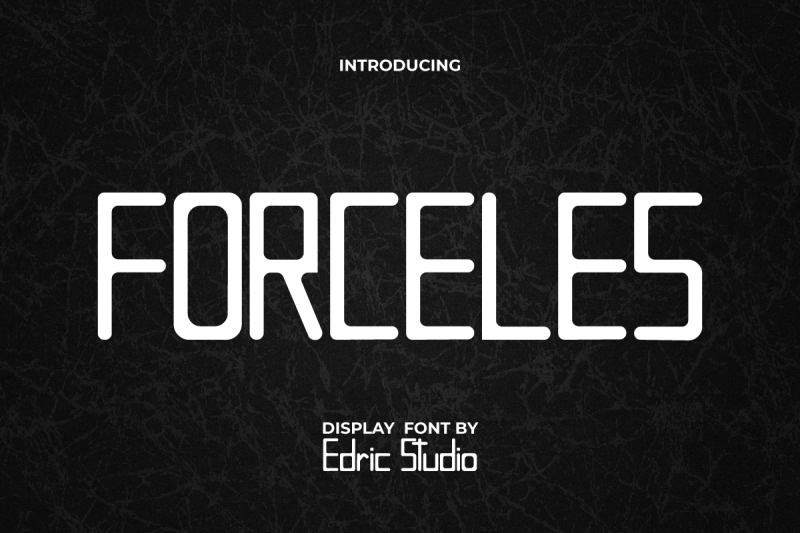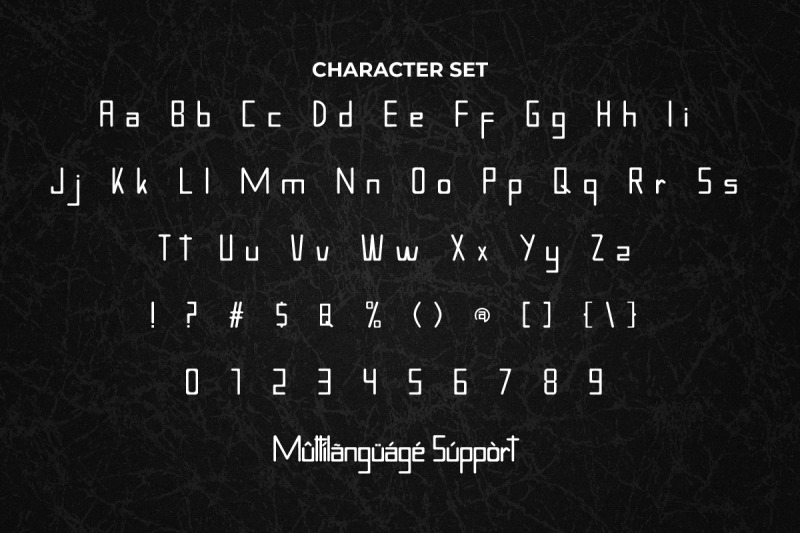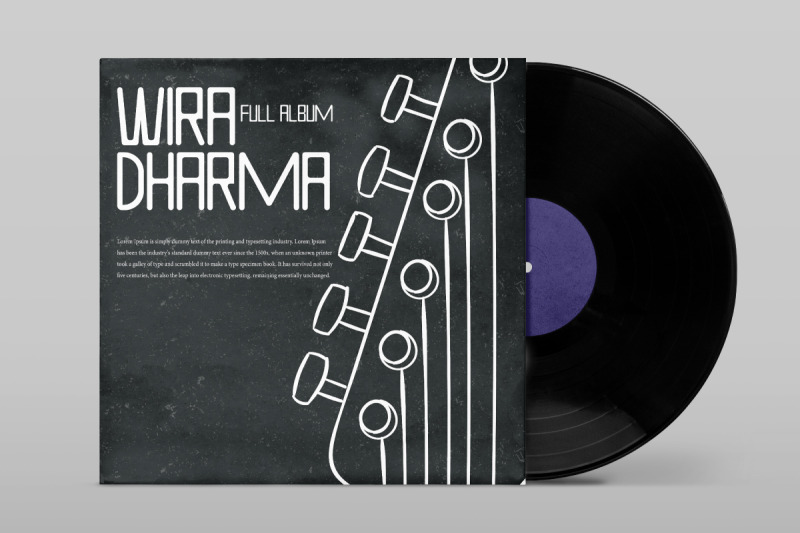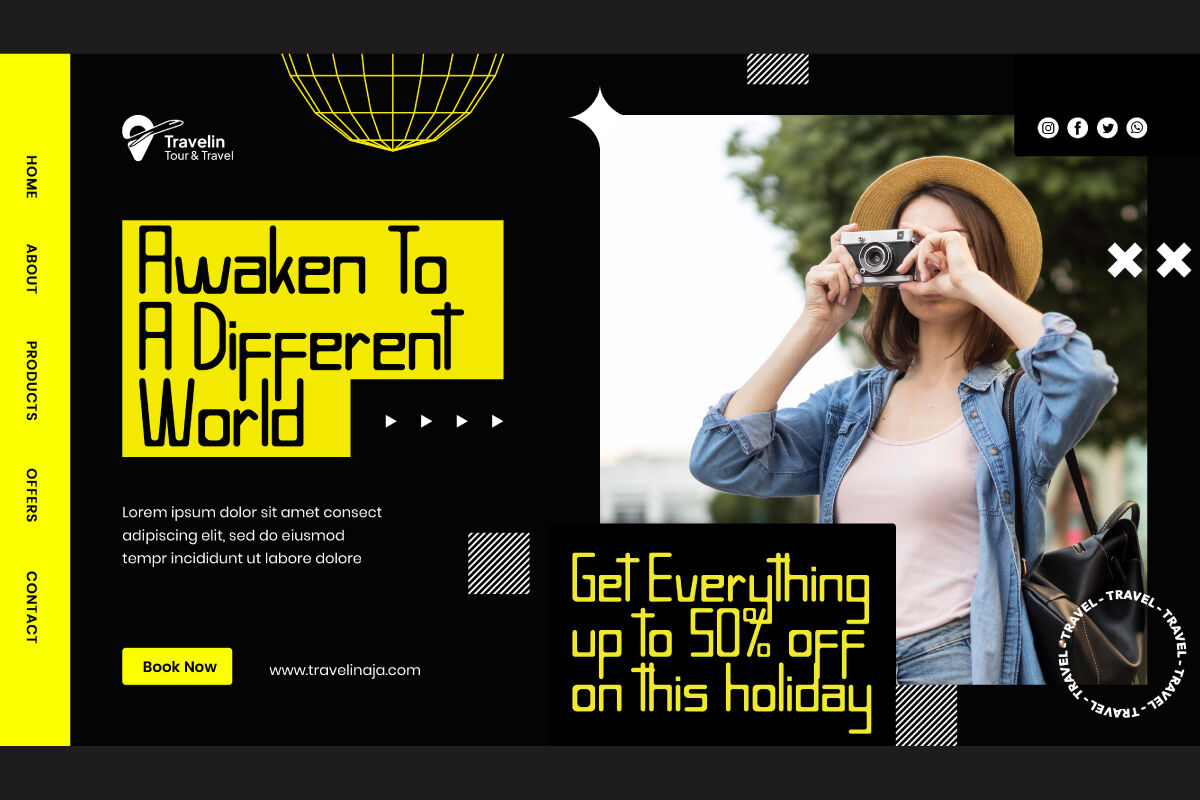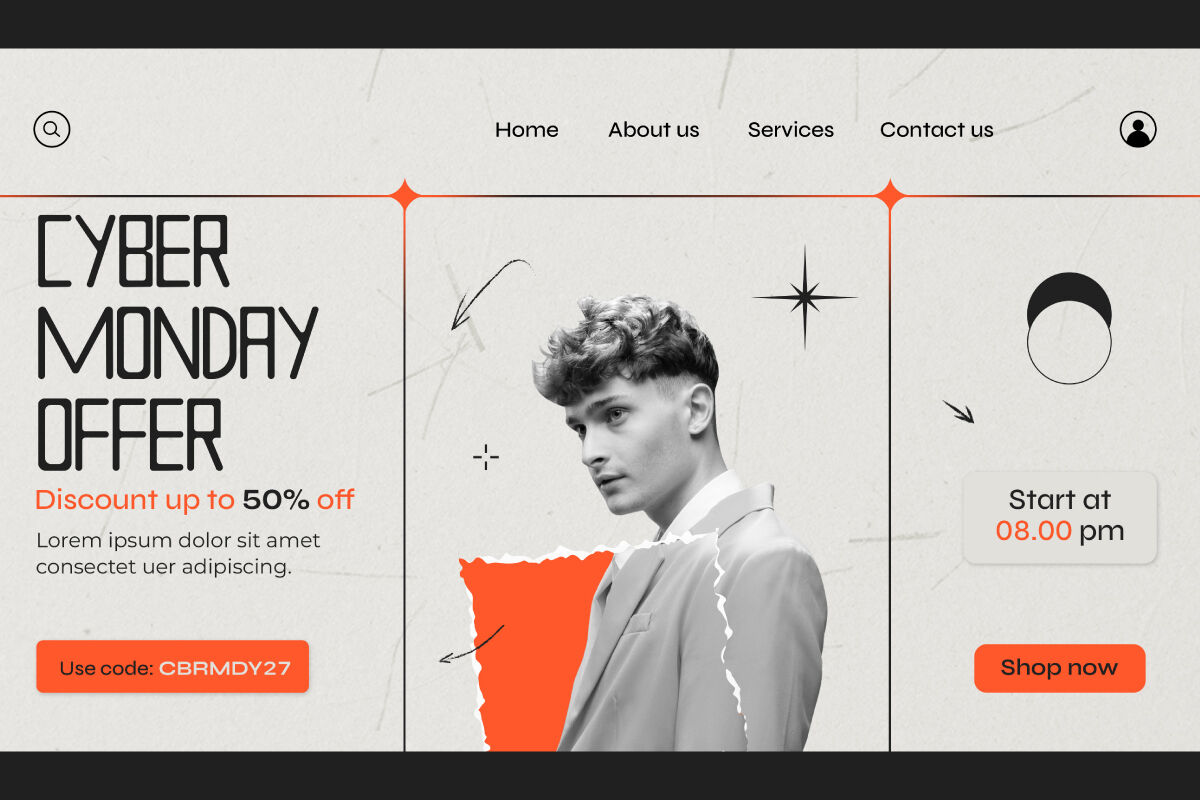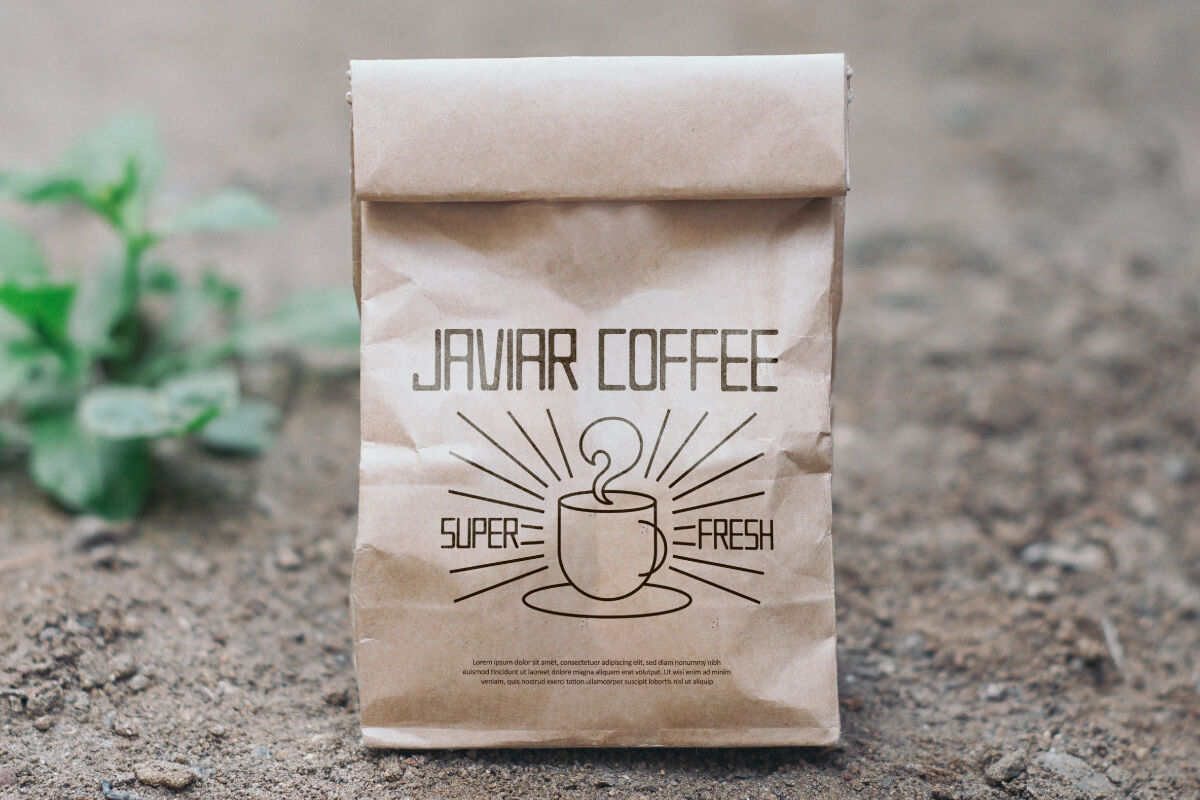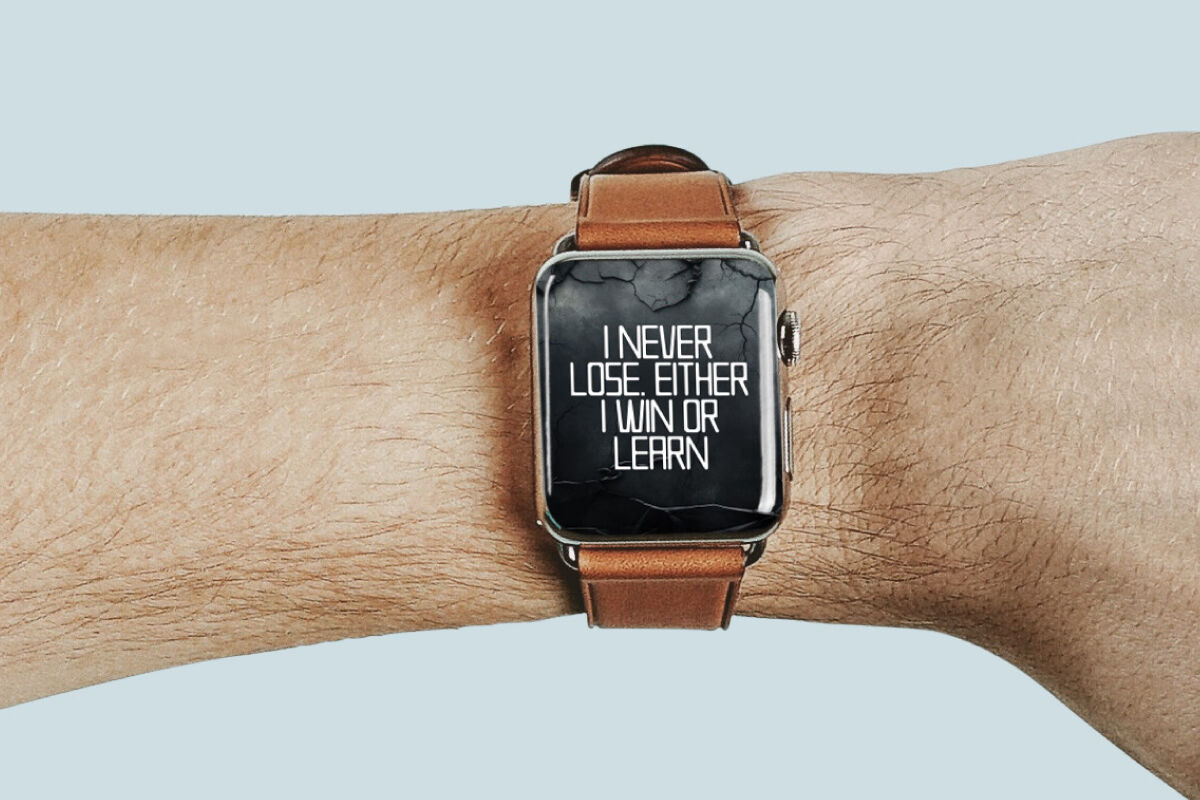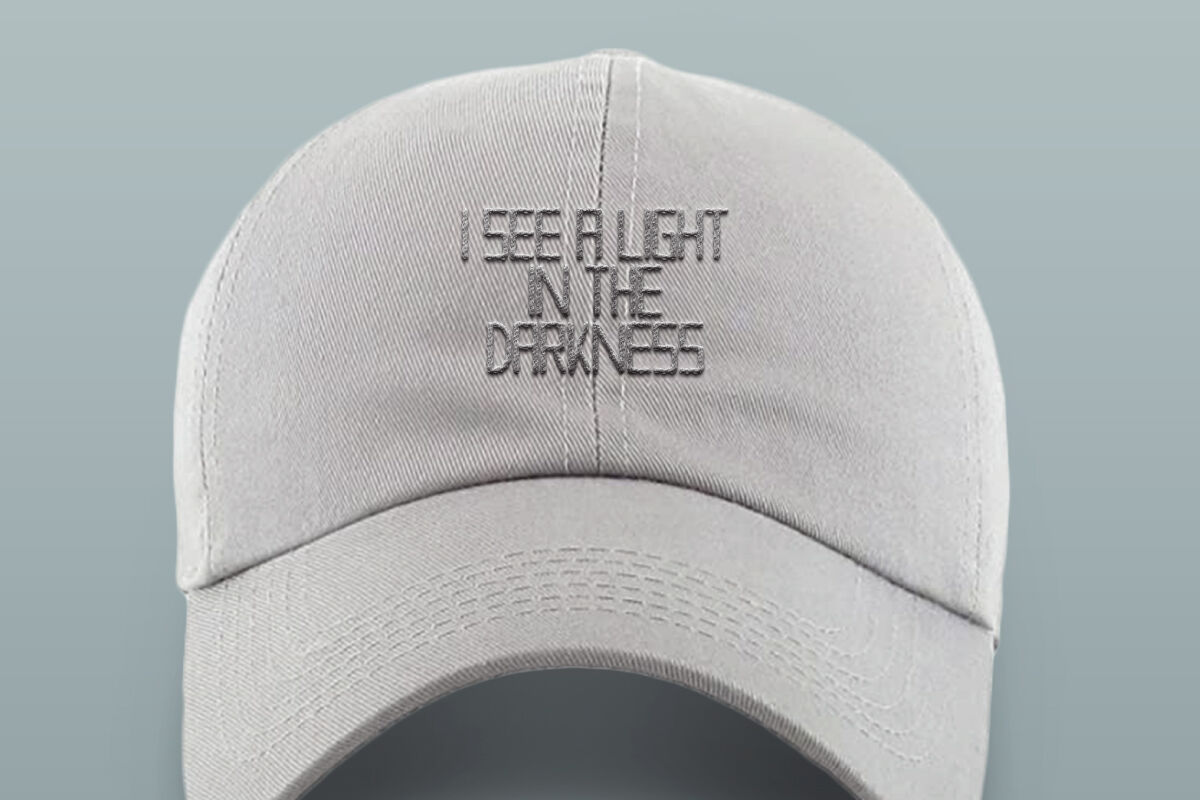
Forceless Font is a futuristic techno display font with a sleek typeface that is clean and modern. Looks smooth in any layout with balanced lines and rounded edges, it’s a must-have for your font collection. Can be used for your branding logo, brochures, blogs, covers, embroidery designs, flyer, headers, magazines, poster, product packaging, screen print, social media banners, title and website.
Forceless Font includes a complete set of Uppercase and Lowercase Letters, Numbers, Punctuation, and Symbols. This iconic digital style font is made with high readability. Looks great on its own or combined to get other variations and visual forms. It is a perfect for accessories and watches, apparel, coffee shop, event organizer, fashion, graphic design, music instrument store, photography, printing, publishing, and more.
Designed with versatility in mind, Forceless Display Font shines in both print and screen applications. Its strong presence and sharp edges make it the ultimate choice for headlines, titles, and logo designs that need to display with impact. This font doesn’t just show your message — it display it with confidence.
Built for designers, marketers, and creatives, Forceless Display Font is easy to use and fully optimized for modern design tools. It comes in multiple weights, making it a flexible option for both minimal and expressive display typography.